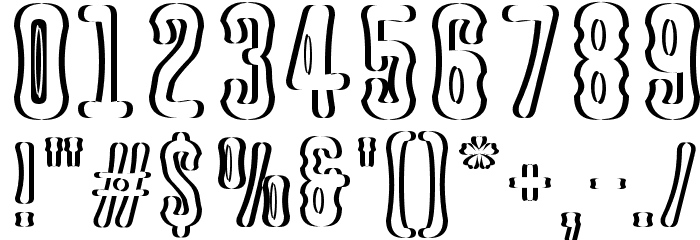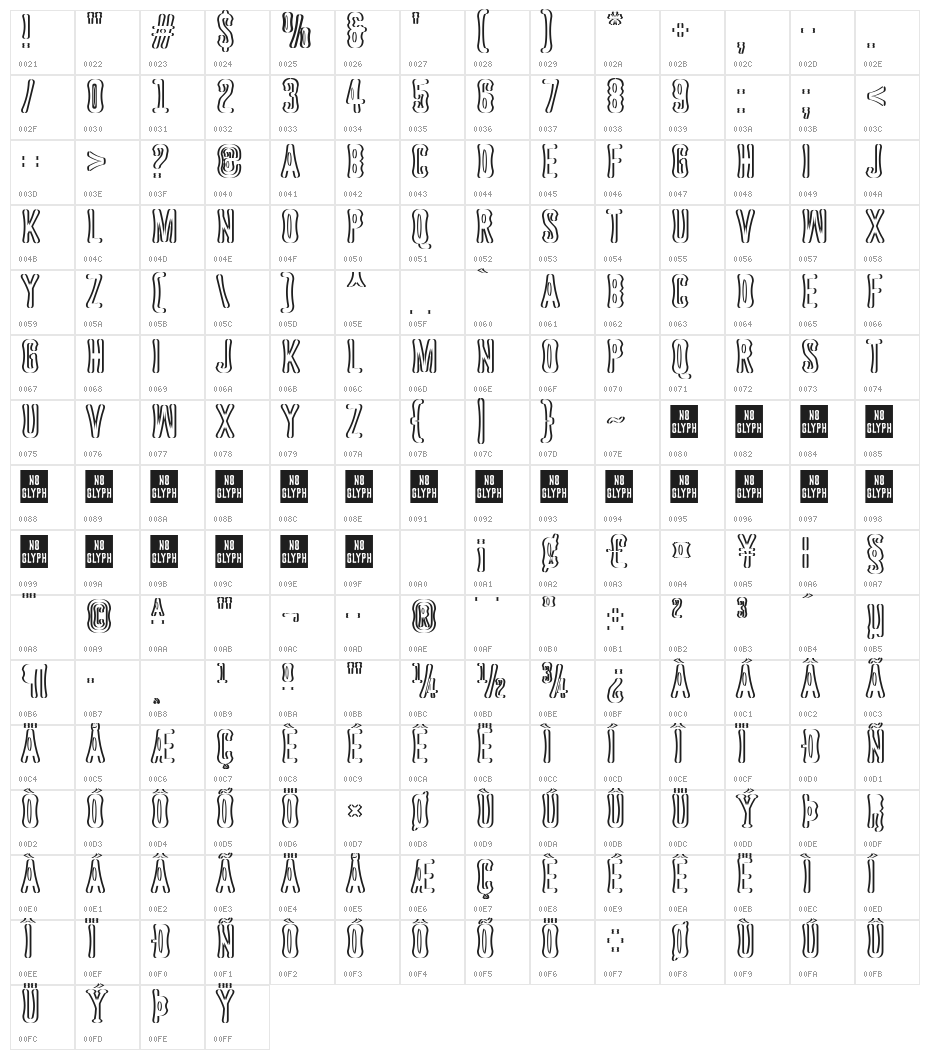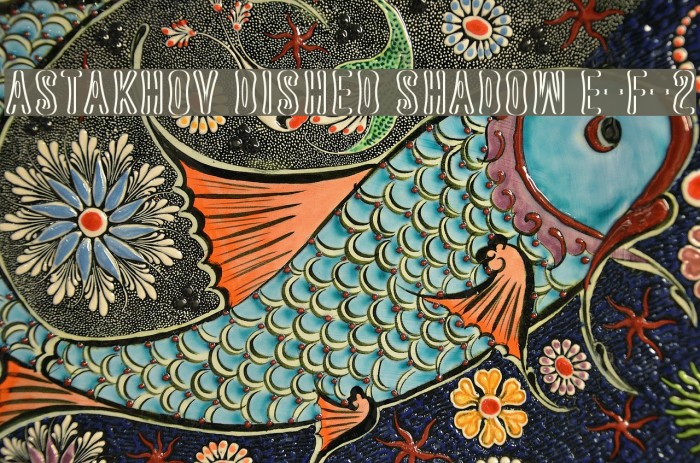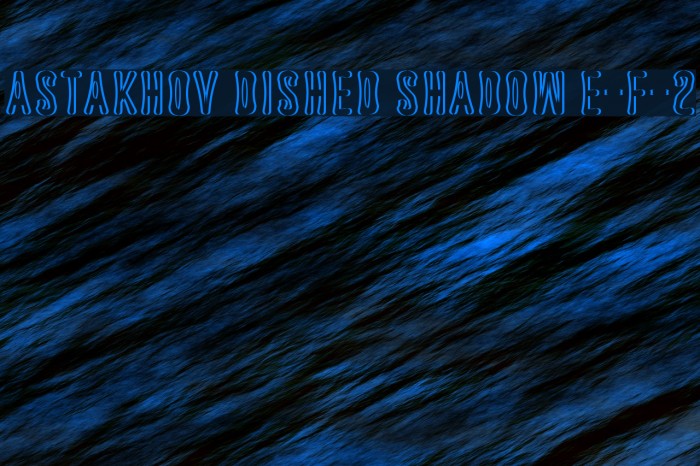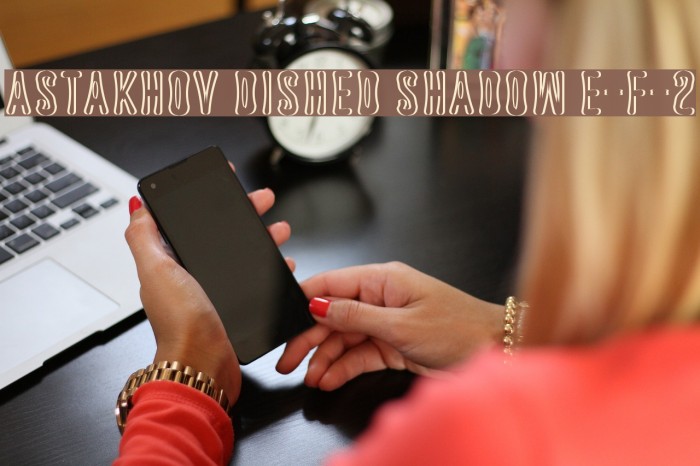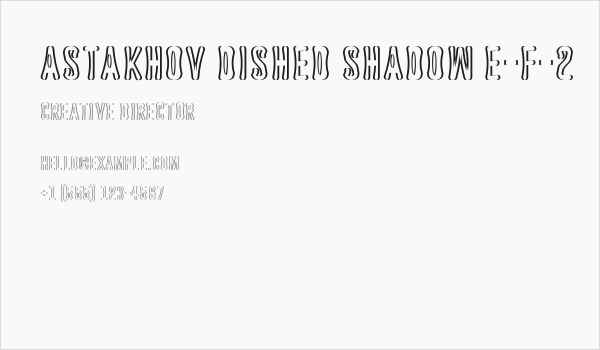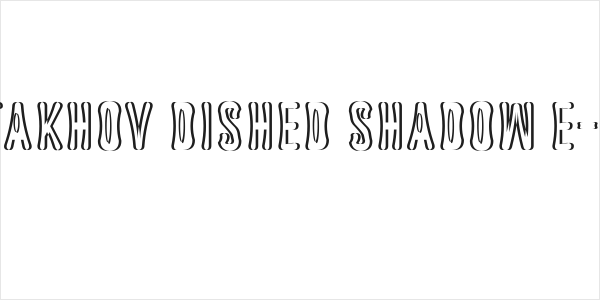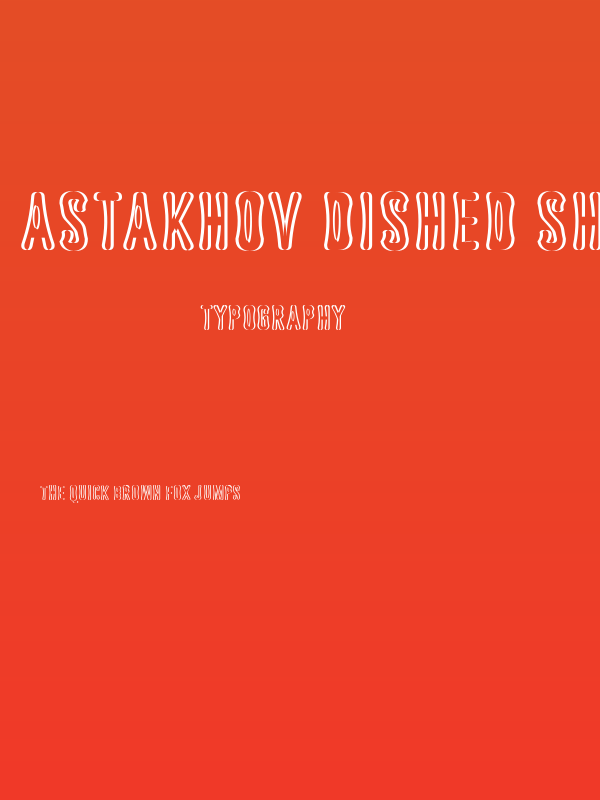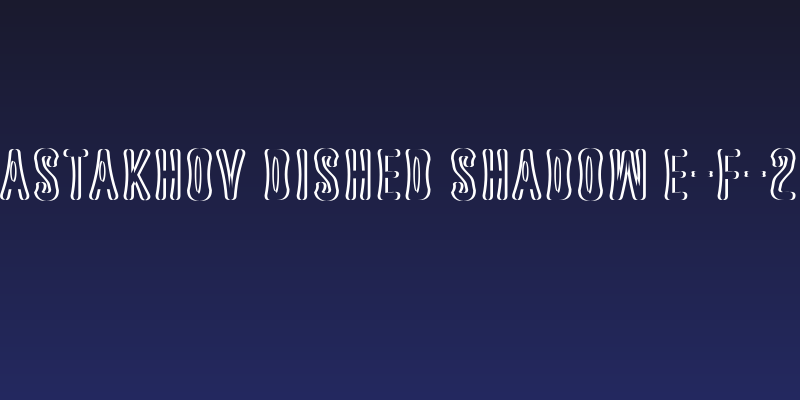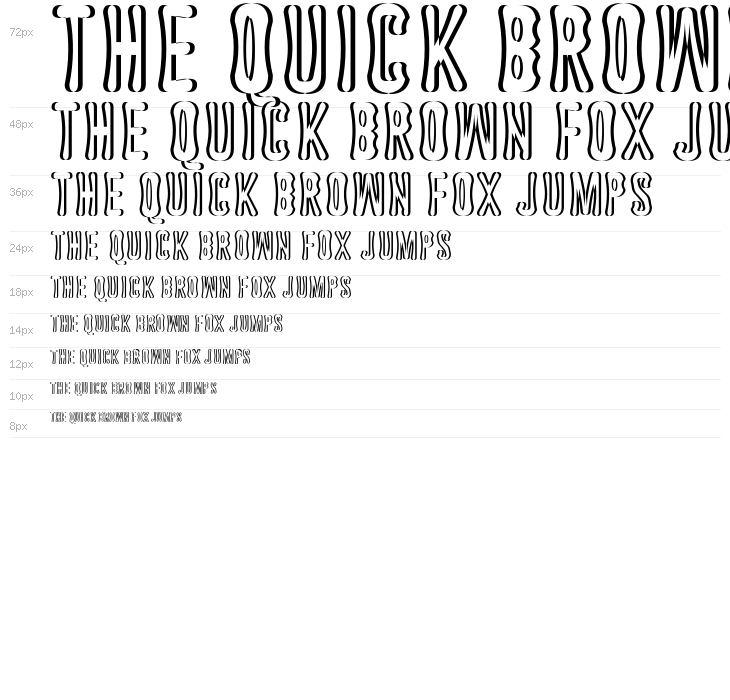
Astakhov Dished Shadow E-F-2 Font
Astakhov Dished Shadow E-F-2 Description
This font features a unique shadowed design that gives each character a three-dimensional appearance. The letters are bold and have a distinct, playful style with a decorative flair. The shadow effect is consistent across all characters, adding depth and a sense of movement. The font maintains a balance between readability and artistic expression, making it suitable for eye-catching designs. The uppercase and lowercase letters share the same shadowed style, and the numerals and special characters are crafted to match the overall aesthetic. This font is ideal for projects that require a bold and dynamic visual impact.
| Proposed Projects | Ideal for posters, logos, headlines, and any design requiring a striking visual impact. |